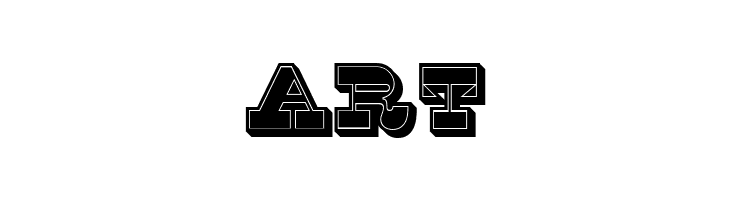
A bold, geometric font with a futuristic, industrial style.
A bold, condensed italic font with a starry pattern, perfect for cosmic-themed designs.
A bold, italicized font with a space-themed, starry design.
An ornate, medieval-inspired font with intricate decorative frames.
A bold, shaded, oblique font with a three-dimensional look.
An ornate, medieval-inspired decorative font with intricate patterns.
A bold, sketchy, hand-drawn font with a playful and artistic style.
Ornamental dingbat font with kaleidoscopic and mandala motifs.
Expressive ghost-themed dingbat font with various smiley faces.
A decorative knotwork font with bold, intertwining lines and geometric shapes.
Illustrative artwork of geishas, not a font.
Medieval-themed dingbat font with detailed silhouette illustrations.
A symbol font with diverse Christian cross designs and religious motifs.
A decorative font composed entirely of assorted star and burst shapes.
Ornamental dingbat font with sunburst and circular motifs.
Abstract, patterned spheres with high contrast and decorative style.
A display font composed of zeppelin and airship illustrations for each character.
Weather-themed decorative icon font.
A decorative font featuring abstract floral motifs within square frames.
A bold, illustrative display font with skull and t-shirt themed icons.
A decorative set of tribal-inspired figures with bold, intricate designs.